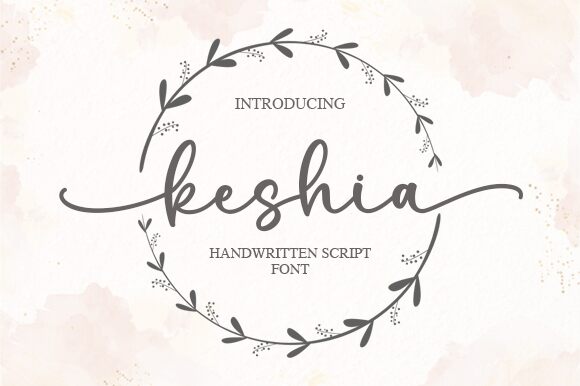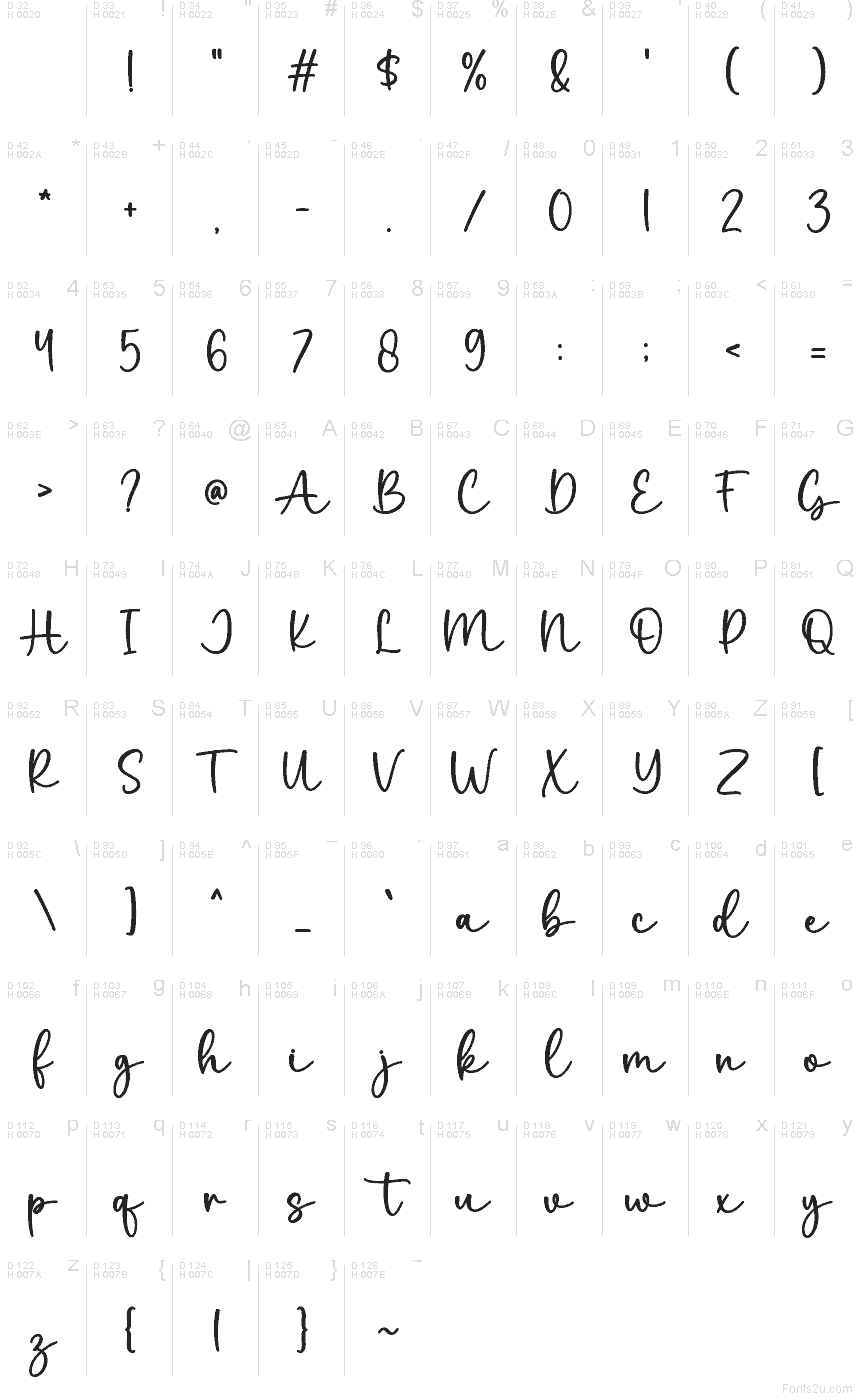
Keshia
Keshia font by Aldi Raya Pradipta of Graphix Line Studio is a free handwritten font, drawn with the easy confidence of a felt-tip pen. Its strokes stay smooth and slightly springy, with a friendly rhythm that feels personal without getting messy. The casual connecting flow keeps words moving, while the open shapes stay readable even when you size it down.
Using Keshia, you’ll get a warm signature vibe that shines on social posts, beauty and lifestyle branding, boutique logos, product tags, quote graphics, invitations, packaging stickers, and website headers. Pair this free font with a clean sans like Montserrat or Poppins, and give it a little extra letter spacing if you’re setting it over busy photos.